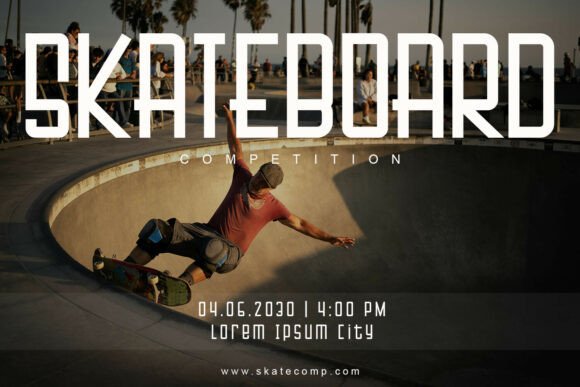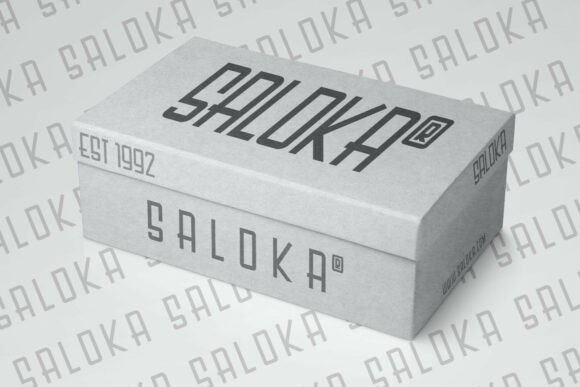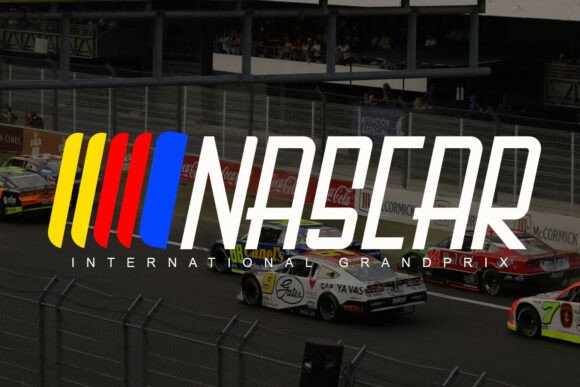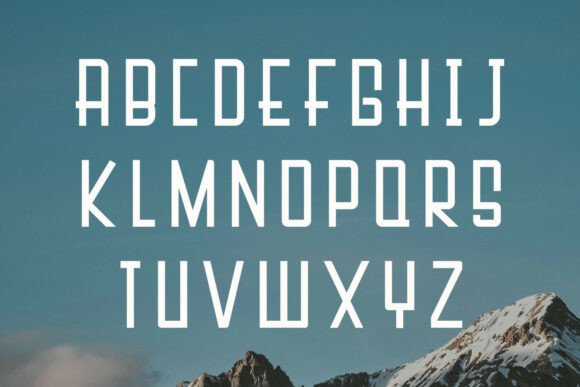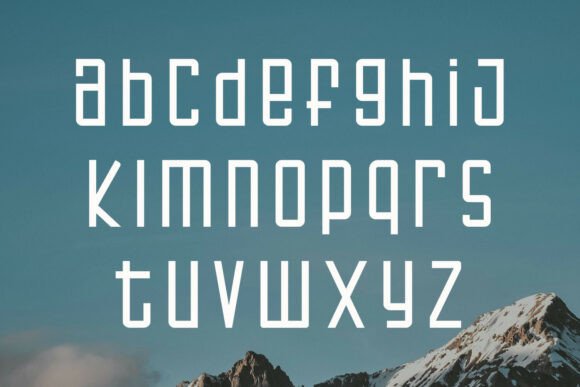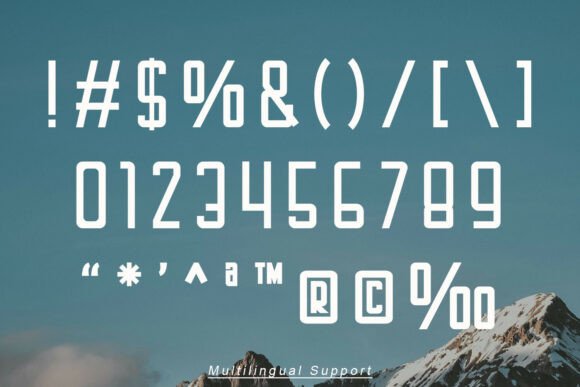
Introduction to Ludane Font
Welcome to the world of LUDANE, an artfully crafted modern condensed display font that delivers a potent visual punch with a sleek, minimalistic appeal.
Towering in height and characterized by its edged geometric design and harmonized letter-spacing, LUDANE becomes the excellent choice for impactful headlines, memorable branding, powerful posters, and commanding editorials LUDANE emanates a sophisticated contemporary charm, making it a flexible asset across a variety of digital and print mediums.